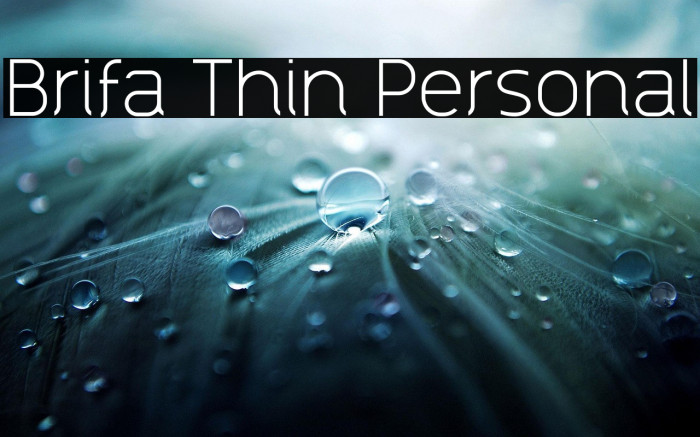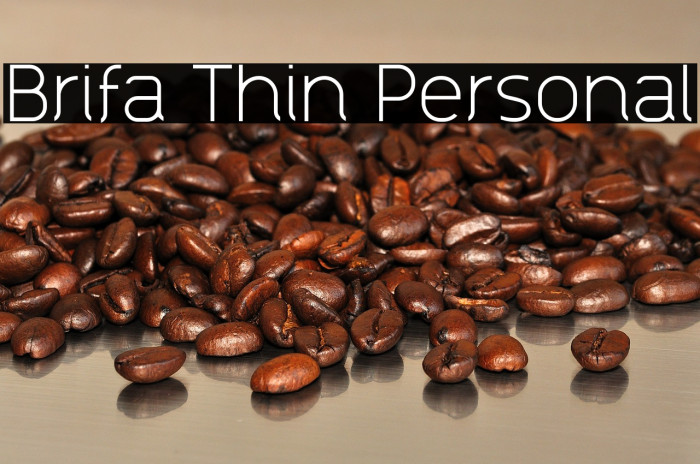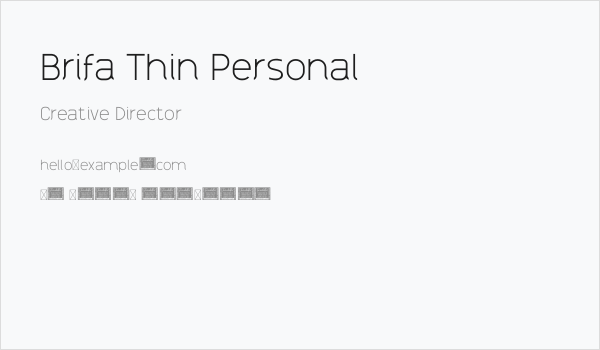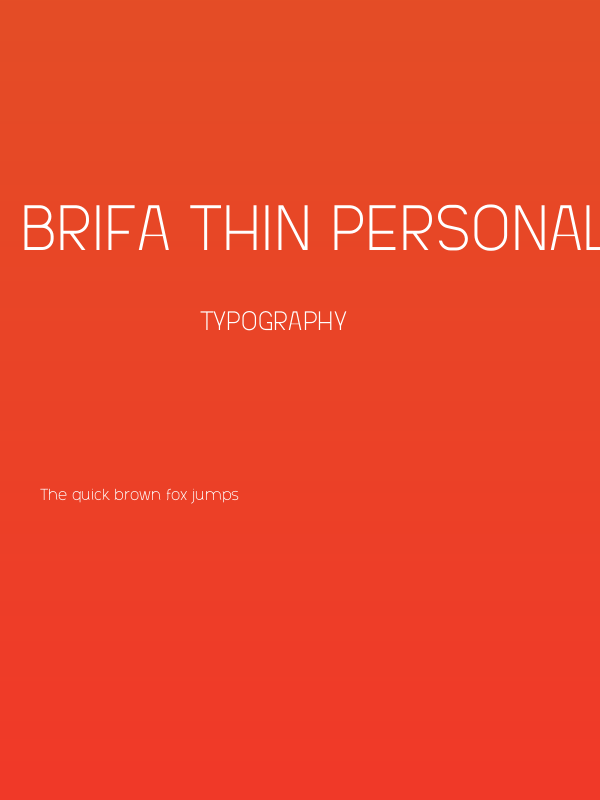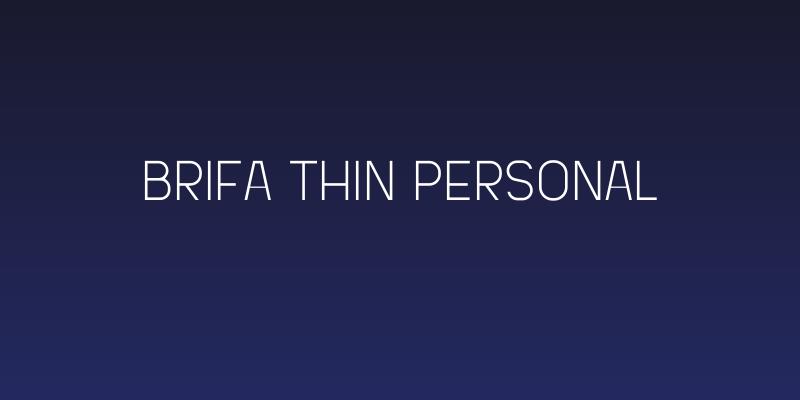
Brifa Thin Personal Font
Brifa Thin Personal Description
This font features a sleek and modern design with clean, straight lines and a minimalistic aesthetic. The uppercase and lowercase letters are well-proportioned, maintaining a consistent height and width that enhances readability. The characters exhibit a uniform stroke width, contributing to a harmonious and balanced appearance. The font's thin weight gives it an elegant and sophisticated look, making it suitable for contemporary design projects. The spacing between characters is normal, ensuring clarity and legibility in various applications. This font is versatile and can be used in both digital and print media, offering a professional and polished feel.